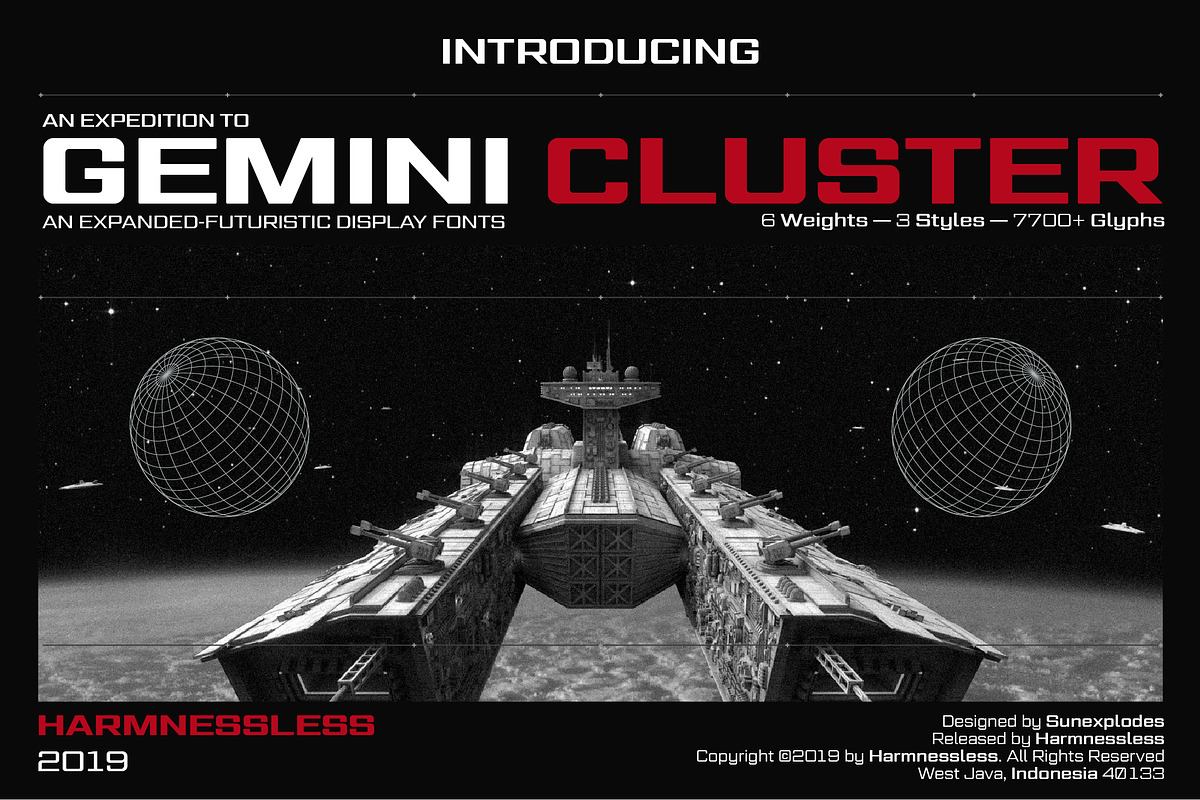
Gemini Cluster - Expanded Fonts Free Download
Gemini Cluster - Expanded Fonts Free Download is a bold and futuristic typeface family designed with wide, spaced-out letterforms that command attention. Ideal for tech branding, sci-fi titles, modern posters, and cutting-edge digital design, this font delivers a sleek, high-impact look that feels both modern and experimental.
With its expanded width and clean geometric structure, Gemini Cluster - Expanded Fonts Free Download offers a sense of space, innovation, and style. It’s perfect for creatives looking to convey confidence, clarity, and a touch of the cosmic in their typography.